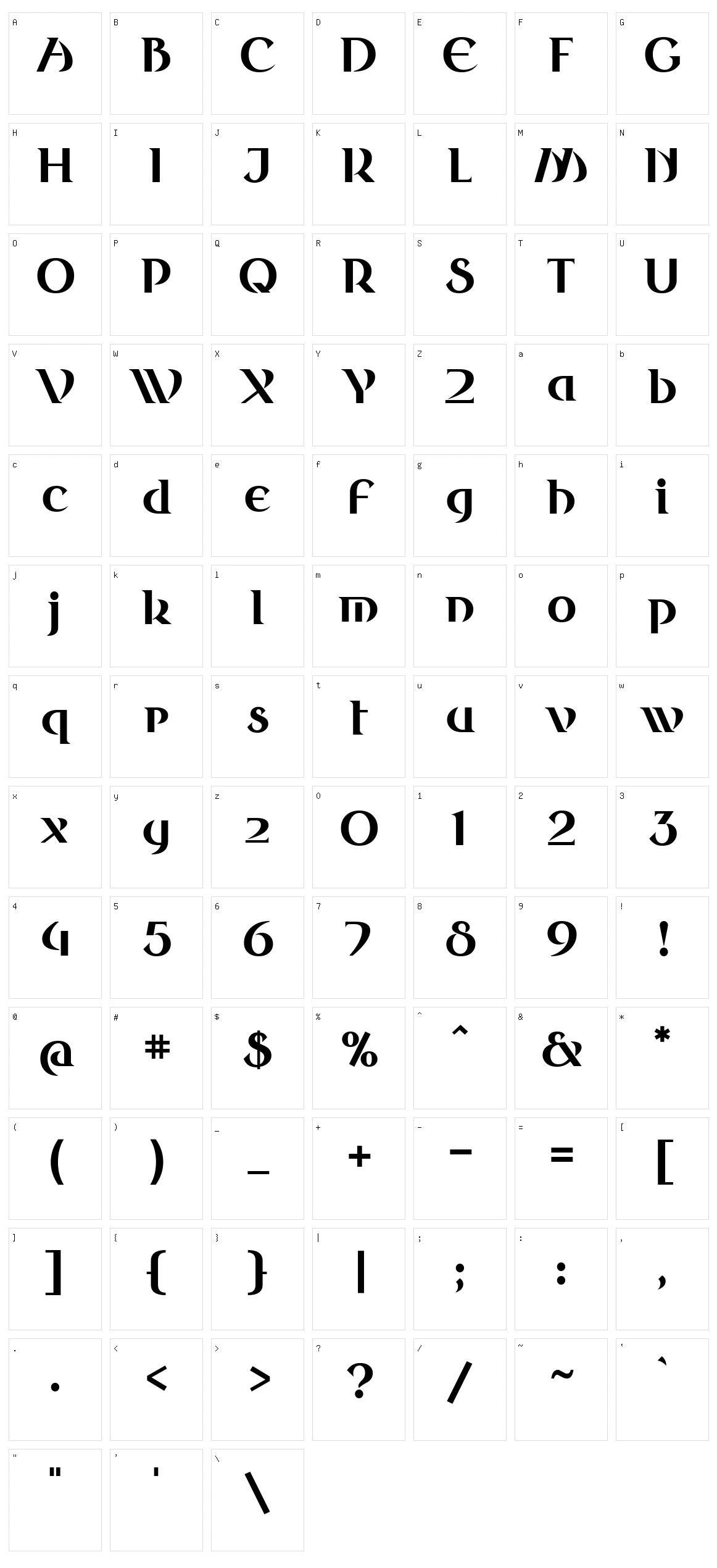
Round Style
Designed by: Wojciech Kalinowski
"Round Style" Font is a Unicode typeface family that supports all languages
that use the Latin script and its variants, and could be expanded to support
other scripts.
"Round Style" Font is created with FontForge.
- Changed left/right side bearings in Bold/BoldOblique versions.
- Fixed kerning for all.
- In 2020 I'm making updates for all my fonts. I've looked at "Round Style"
and I saw terrible fonts. I decided to save only the
"Round Style Deco". This release contains only one font,
redesigned and expanded to Book, Oblique, Bold and
BoldOblique versions.
- Changed "&", "1", "3", "5", "8", "@", "F", "G", "H", "U", "f", "g", "y".
- Improved shapes of all glyphs.
- Fixed kerning.
- Added Bold, Oblique and BoldOblique versions.
- all glyphs redesigned - I "cleaned" all glyphs, removed unnecessary points
and improved shapes of all glyphs.
- redesigned "m" and "n".
- changed names of fonts: "RoundStyleBasic" - "Round Style Basic",
"RoundStyleDeco" - "Round Style Deco"
"RoundStyleMiddle" - "Round Style Middle"
"RoundStyleSimple" - "Round Style Simple"
- I"ve stopped develop "RoundStyleStrange" - it was too crazy for me
- added Kerning by Classes Table (kern)
- fixed some bugs with bearings
This is my newest font based on Roman Square Capitals and Nova Family Fonts.
I created this font family around two months ago. Initially it was two fonts
family - RoundStyleSans and Serif (now RoundStyleMiddle and RoundStyleDeco).
Later I decided to enlarge this family - from the simpliest font
to the most decorative one.
This release contains only four fonts, without "RoundStyleStrange".